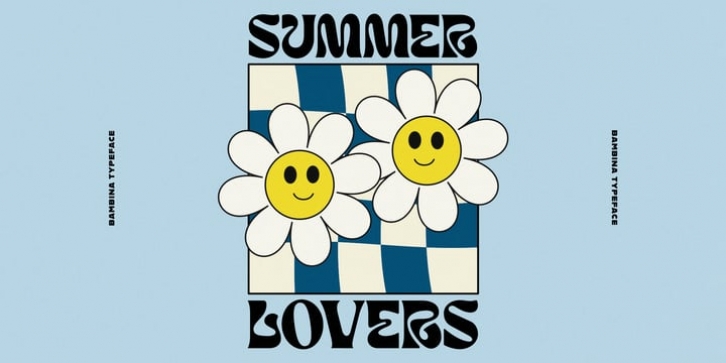
Bambina Font Family was designed by Ivan Rosenberg, and  and  published by Ivan Rosenberg. Bambina contains 3 styles and family package options.
Bambina is a stylish retro font inspired by 19th century architecture and decoration. It looks amazing at display sizes and is easily readable in text size. There are two versions of this font : REGULAR and OUTLINE.
Bambina Font is a display font made mainly for headlines, titles, and other short texts and is well-suited for advertising, vintage mood board, branding, logotypes, packaging, titles, editorial design and modern and vintage design.